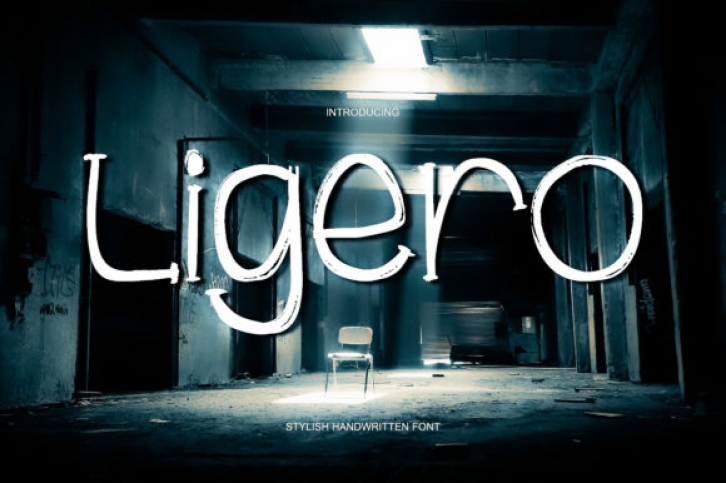
Ligero is a cool and fun looking display font. No matter the topic, this font will be an incredibly asset to your fonts’ library, as it has the potential to elevate any creation.